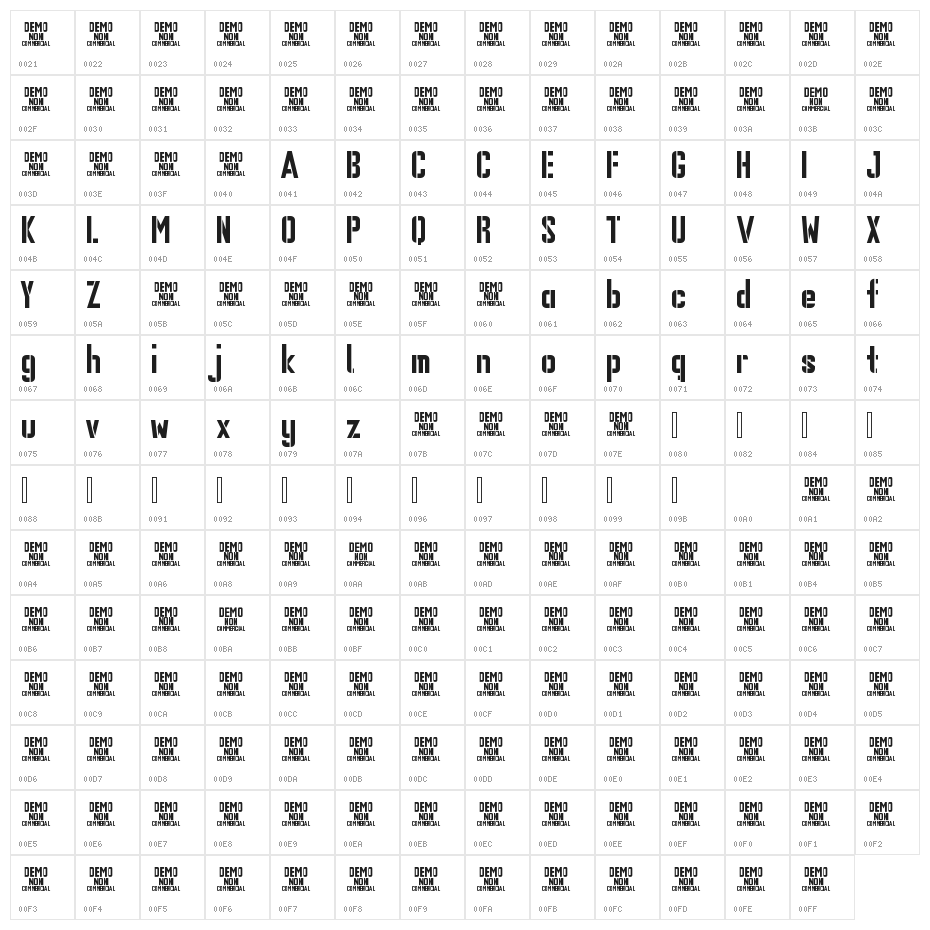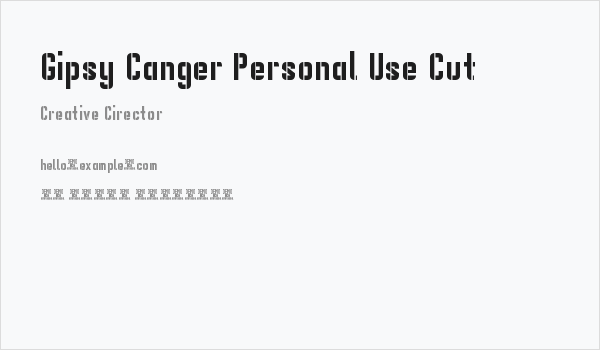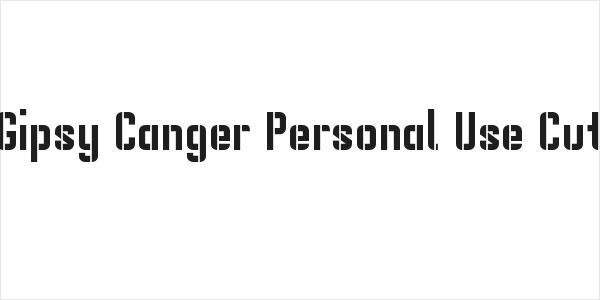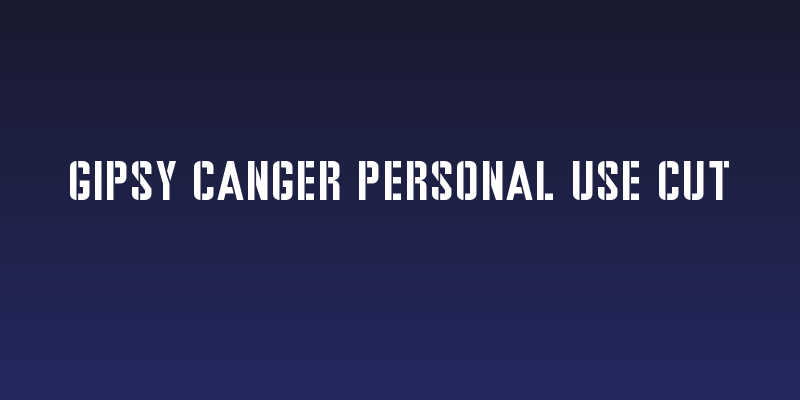
Gipsy Danger Personal Use Cut Font
Gipsy Danger Personal Use Cut Description
This font features a bold and striking design with a strong geometric influence. The uppercase letters are robust and angular, creating a sense of strength and modernity. The lowercase letters maintain the same boldness, with a slightly more compact form. The numbers and special characters follow the same design principles, ensuring consistency across all characters. The font's design is reminiscent of industrial or futuristic styles, making it suitable for projects that require a bold and impactful visual presence.
| Proposed Projects | Ideal for posters, logos, branding, and any project needing a strong, modern aesthetic. |